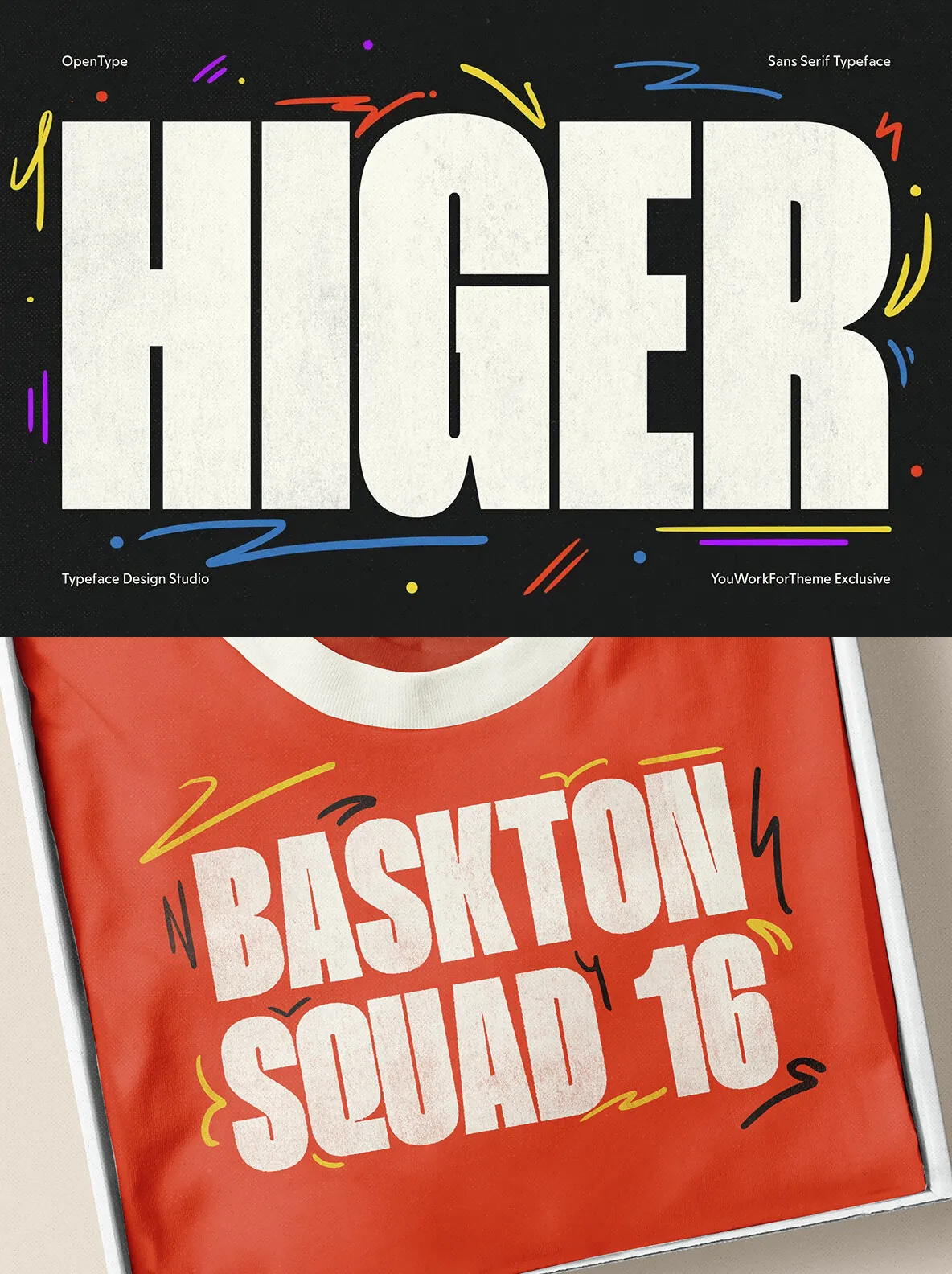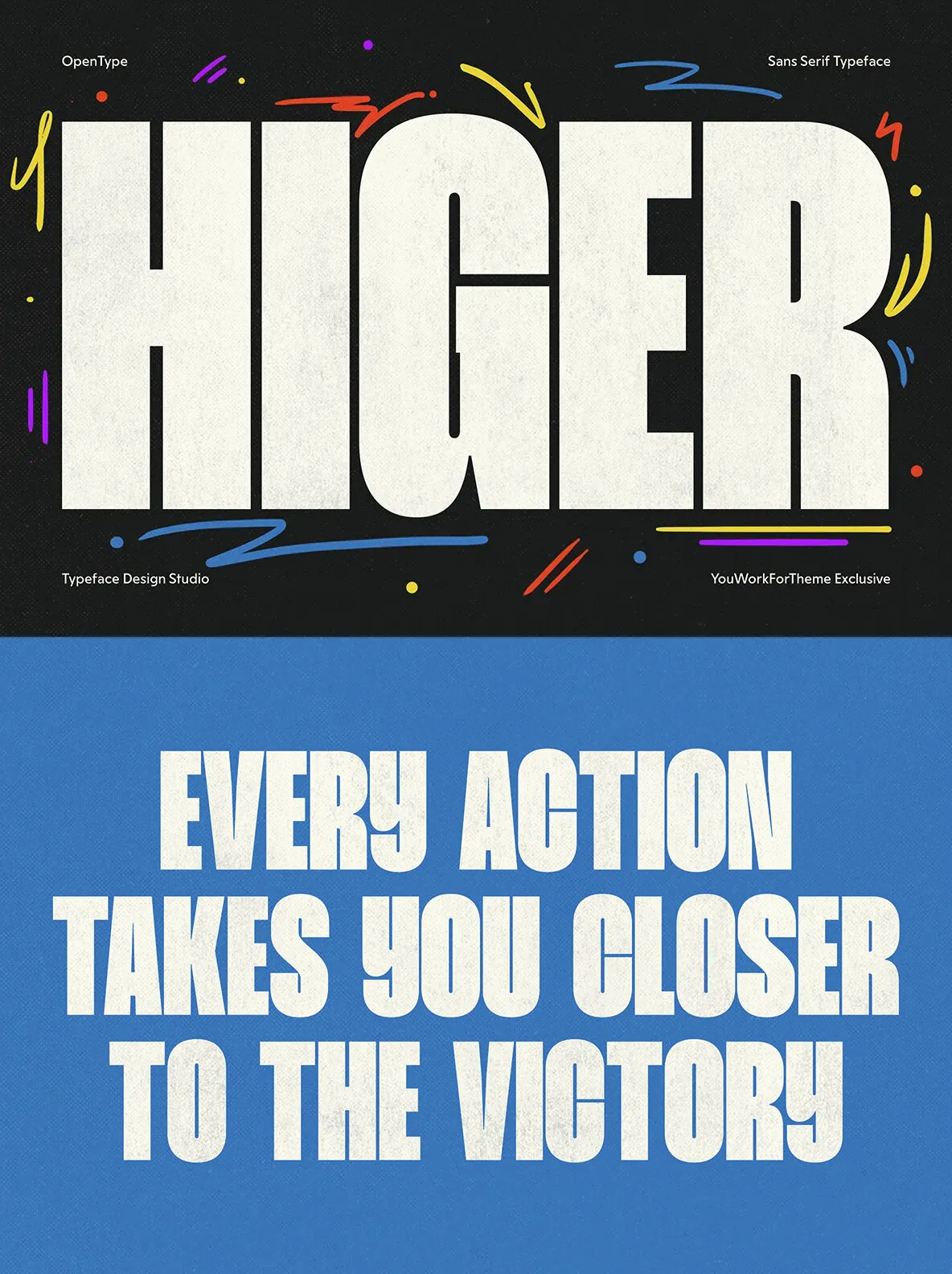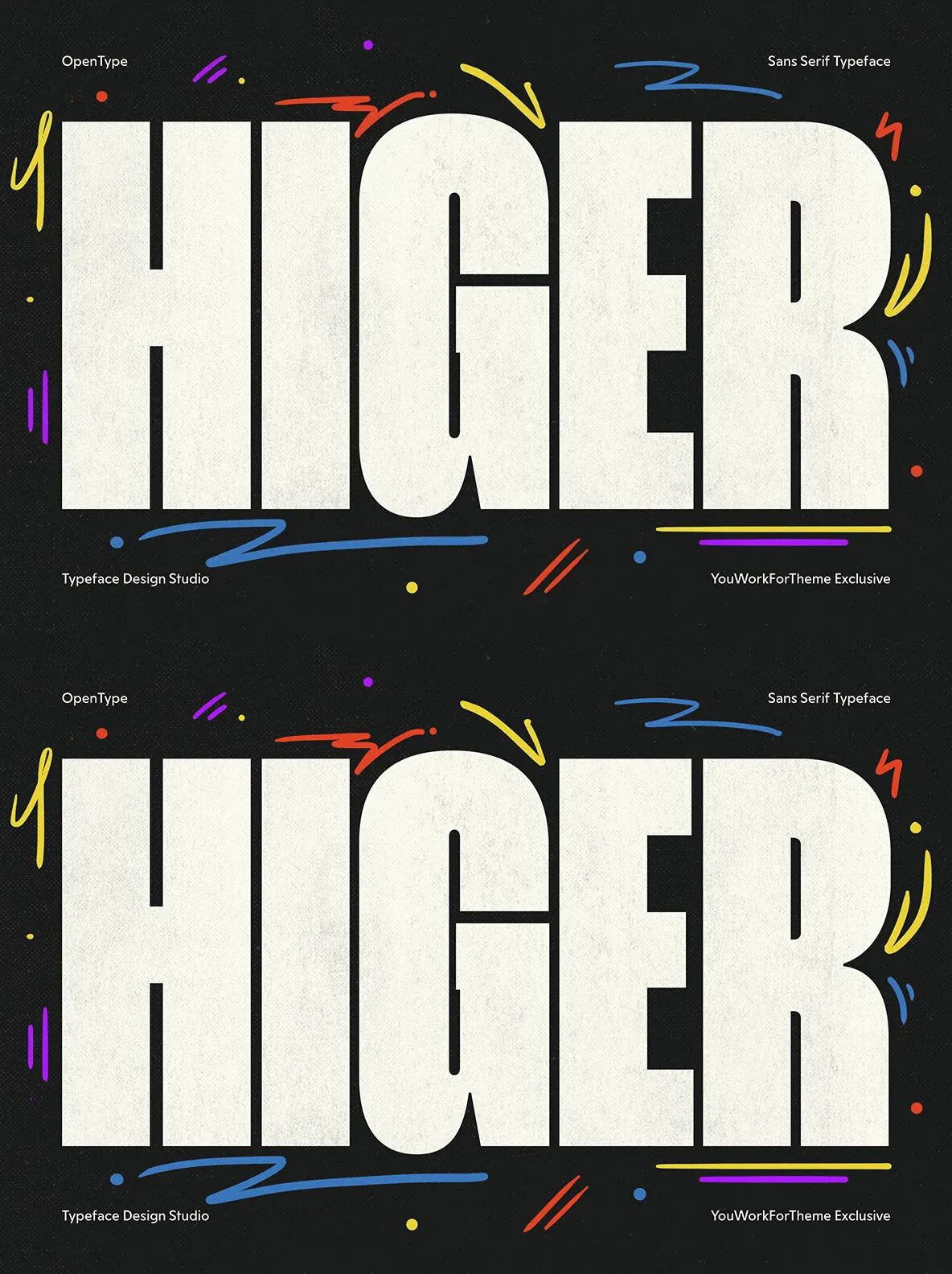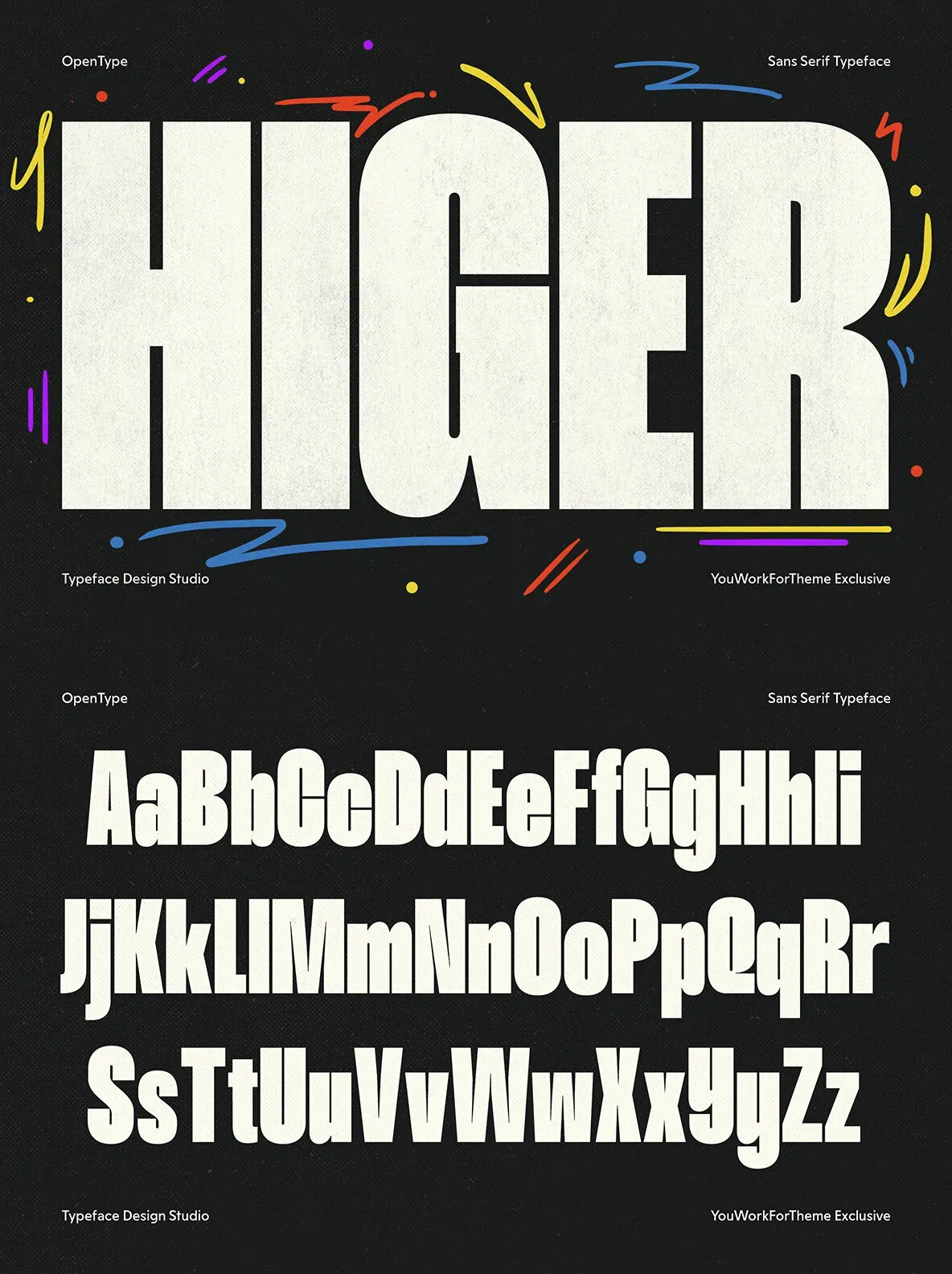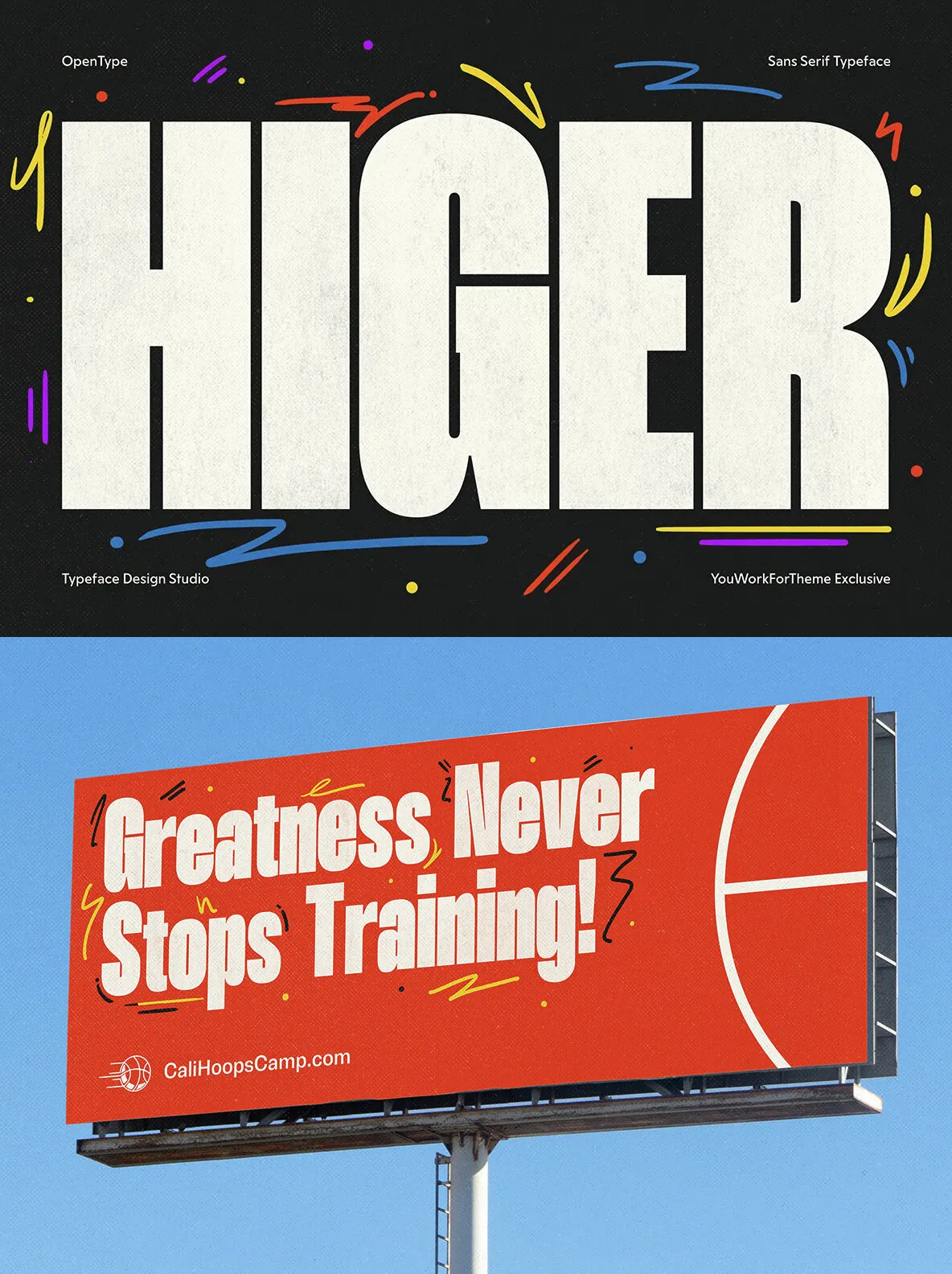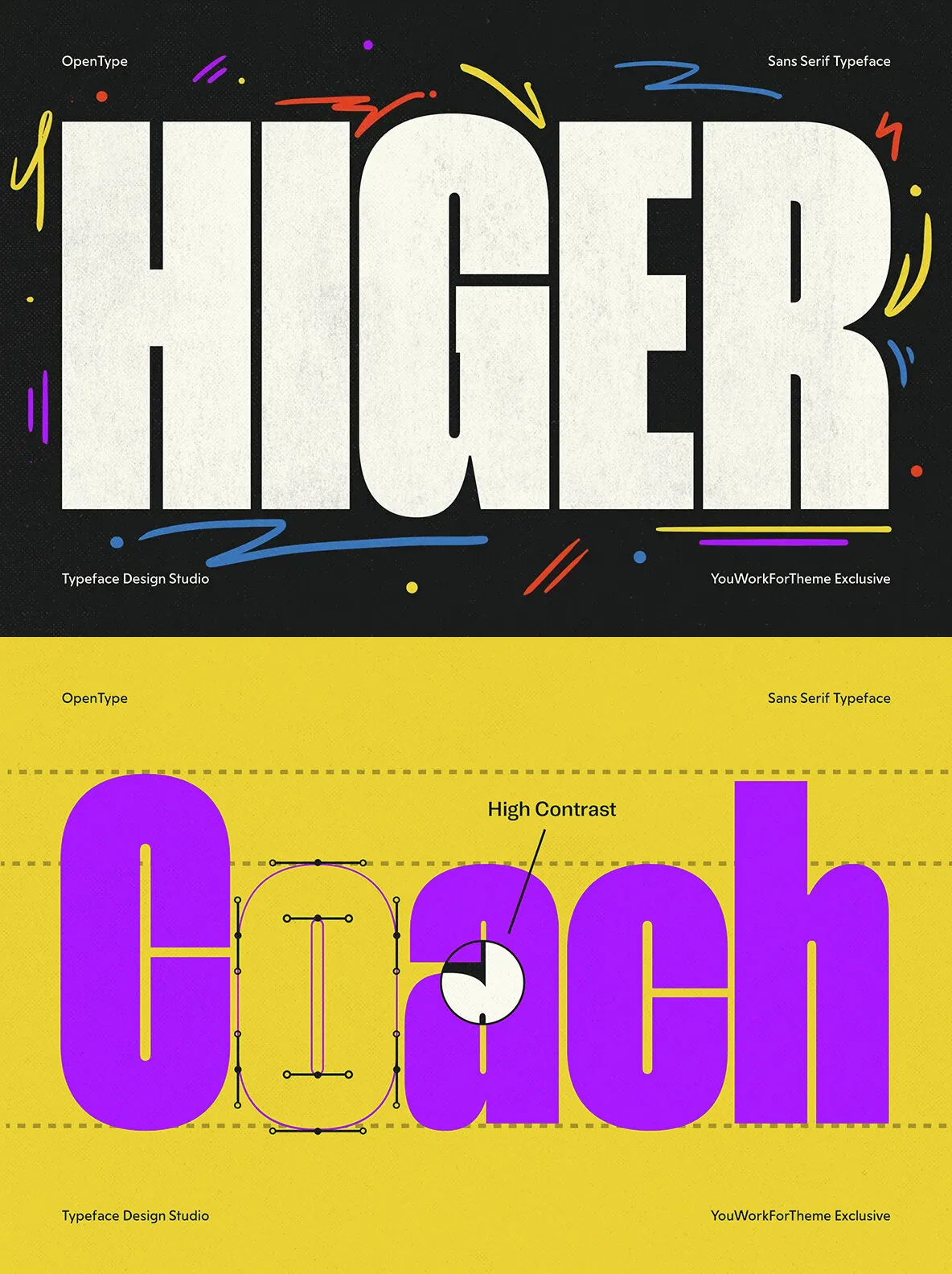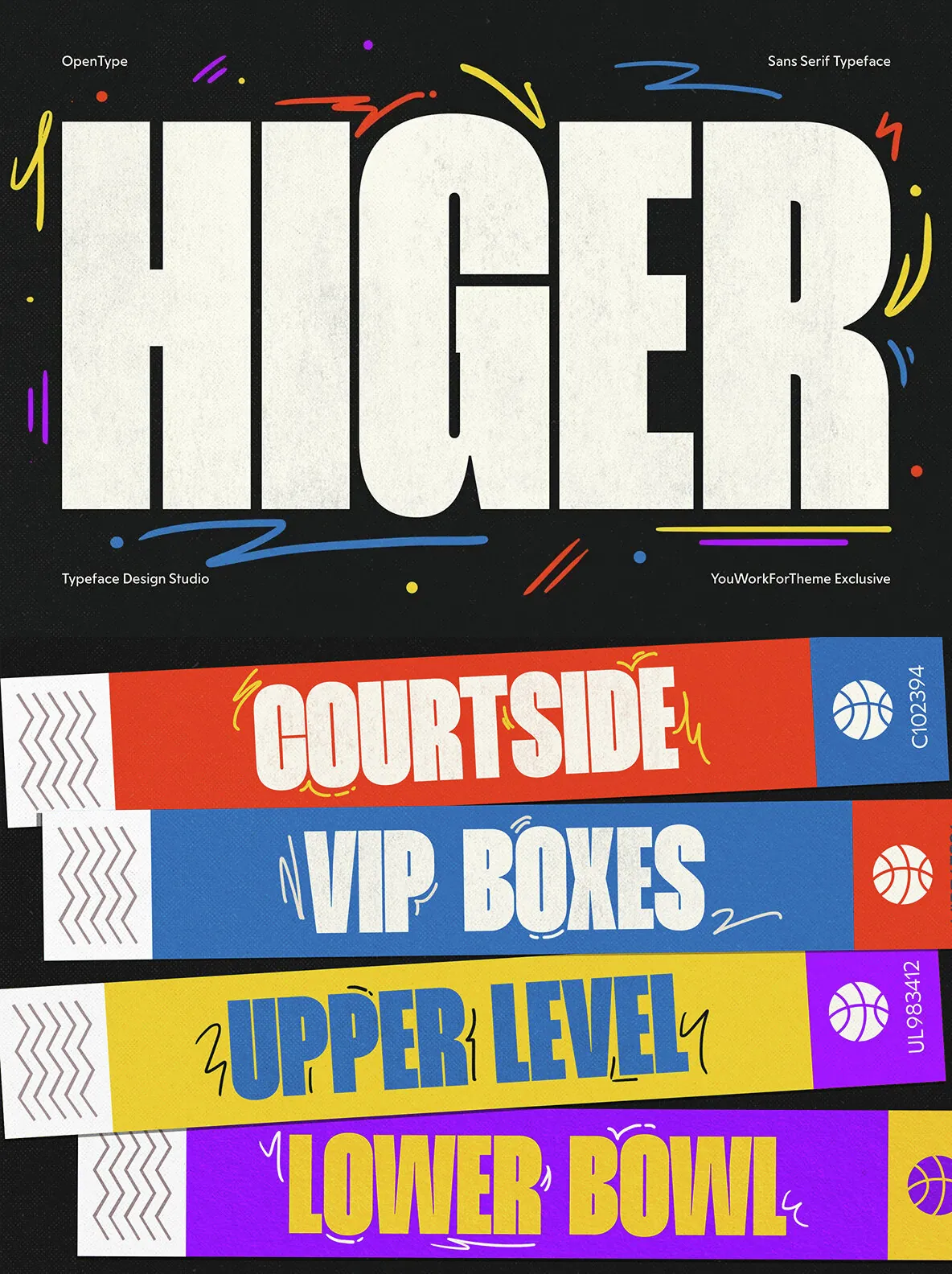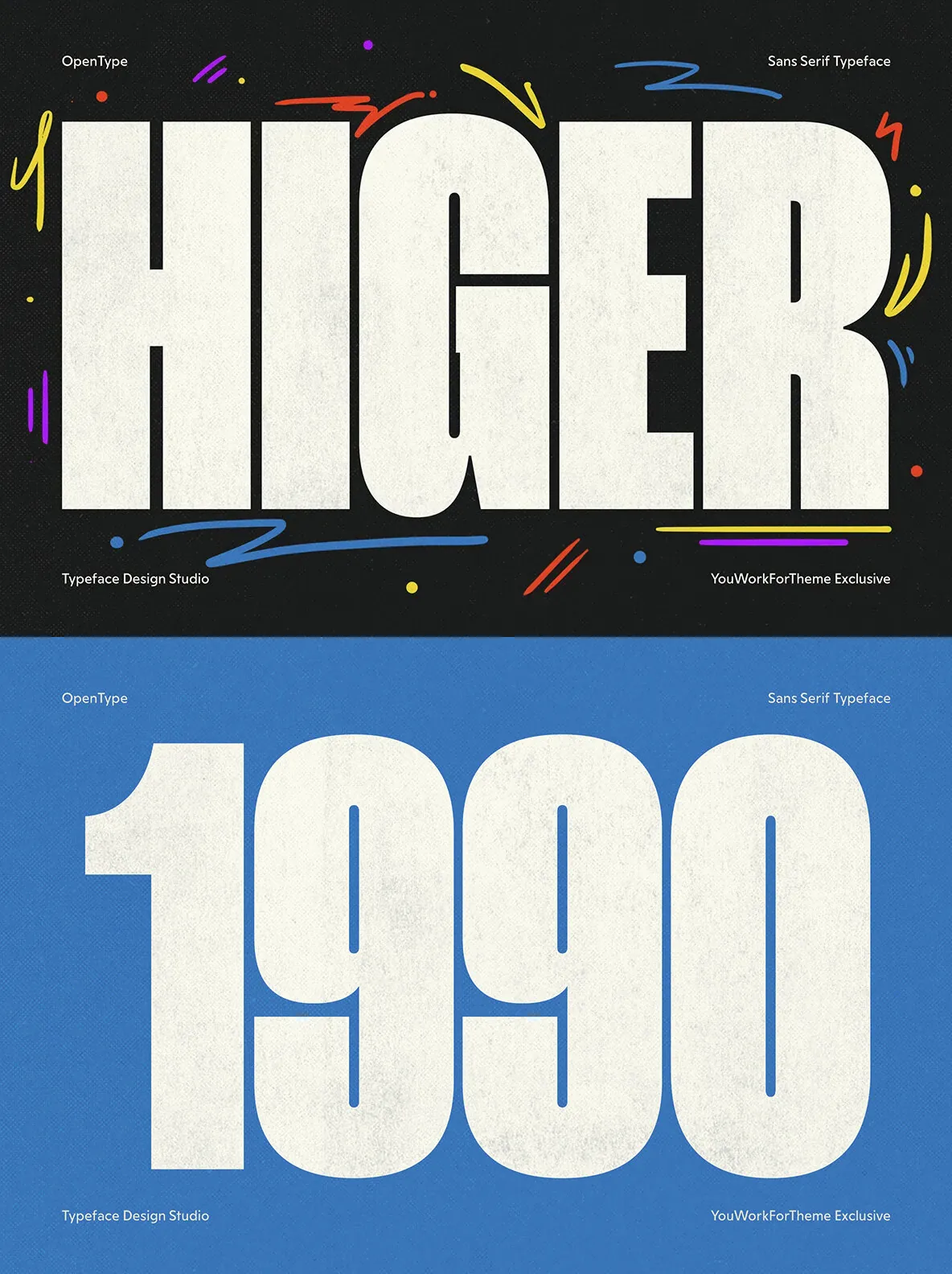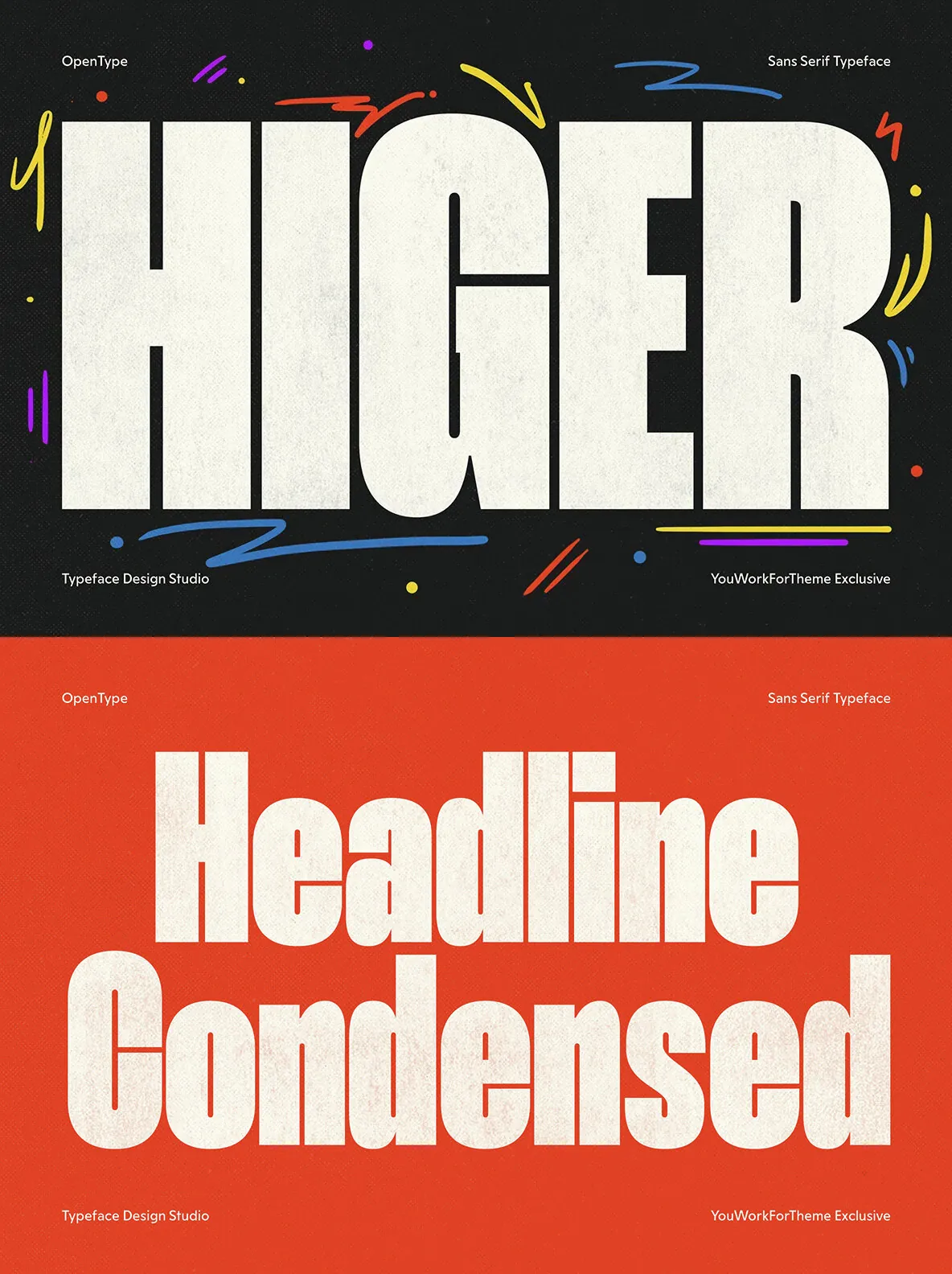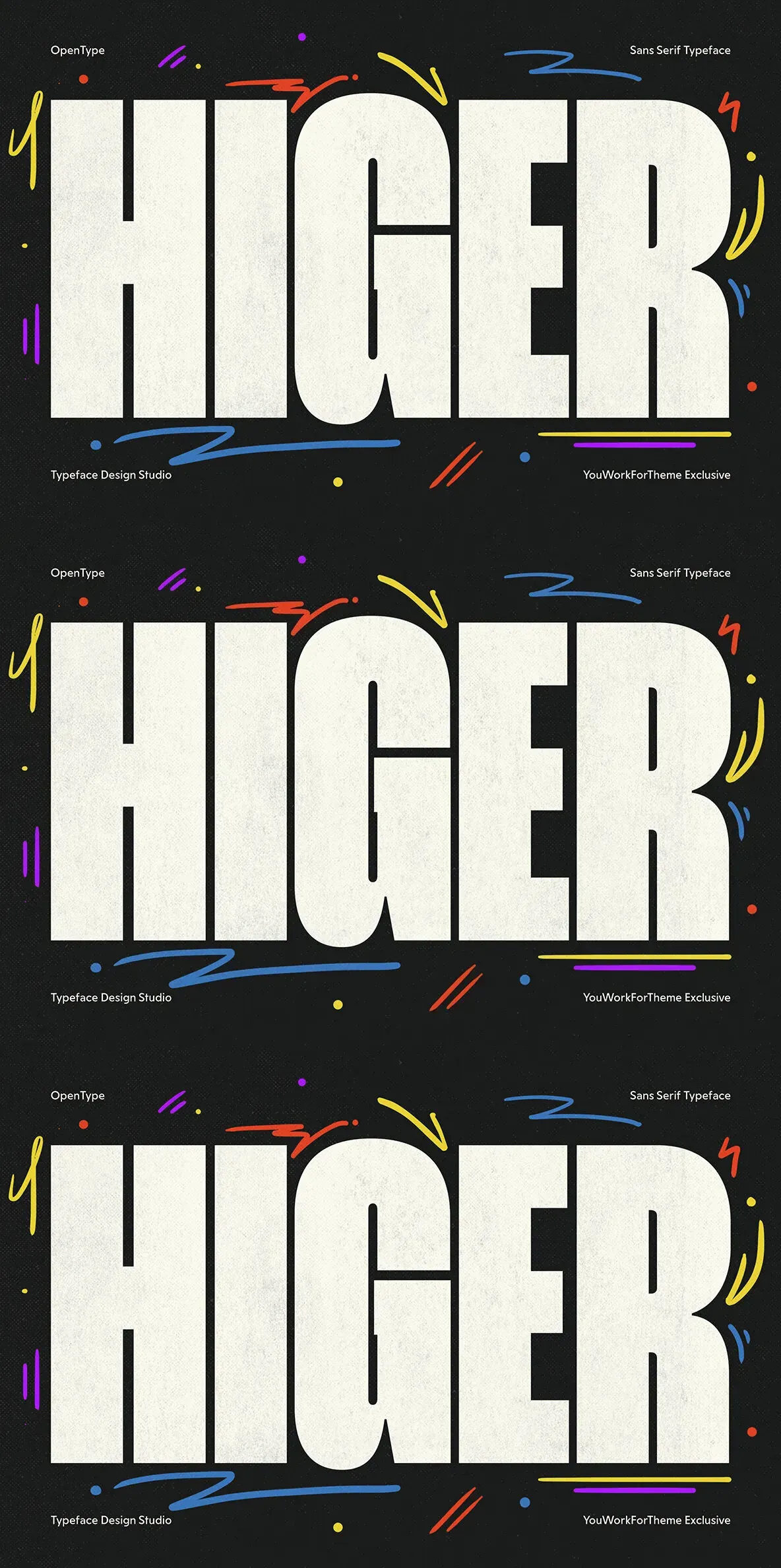
Higer: A Classic Headline Font Design
Higer, a distinctive typeface inspired by traditional design archives, lends a timeless yet vibrant dimension to creative endeavors. Whether for posters, user interfaces, magazines, logos, or apparel, its adaptable style offers a sophisticated solution for diverse projects at an affordable price point.
The font comprises 381 glyphs, offering extensive creative avenues that meet various design requirements. Its inclusion of diacritics supports multilingual projects, accommodating over 100 languages, making it well-suited for global applications.